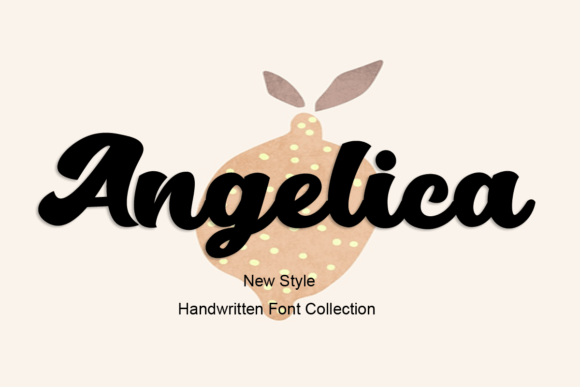
The Quest for the Perfect Font: Discovering Angelica
I still remember the design project that led me to discover the beautiful Angelica Font. I was working on a custom wedding invitation for a client, and I was struggling to find the perfect font that would match the elegant and whimsical theme of the event. The client wanted something delicate, yet eye-catching, and I was determined to deliver. After hours of searching through font libraries and testing different options, I stumbled upon Angelica, and it was love at first sight! 💕
A Personal Review of Angelica Font
As a designer, I’m always on the lookout for fonts that can elevate my projects and make them stand out. Here’s what I love about Angelica:
- ✨ Delicate and elegant handwritten style that’s perfect for formal and informal designs
- 💫 Unique and distinctive character set that adds a touch of personality to any design
- 🎨 Versatile and can be used for a wide range of projects, from invitations and letters to titles and food product labels
While Angelica is an amazing font, it’s not perfect. Here are a few quirks to keep in mind:
- 🤔 Some characters, like the uppercase letters, can be a bit narrow and may require adjusting the tracking for optimal spacing
- ⚠️ The font doesn’t have a built-in bold weight, which may limit its use in certain design contexts
The Story Behind Angelica Font
Angelica was designed by a talented typographer who wanted to create a font that would capture the essence of handwritten elegance. The designer drew inspiration from classic calligraphy and modern script fonts, resulting in a unique and versatile font that’s perfect for a wide range of design projects.
| Font Name | Angelica Font |
| Author | AA studio |
| What type of projects is Angelica suitable for? | Angelica is versatile and can be used for a wide range of projects, including invitations, letters, titles, food product labels, and more. |
| Does Angelica have a bold weight? | No, Angelica doesn’t have a built-in bold weight, but you can use font styles or effects to achieve a similar look. |